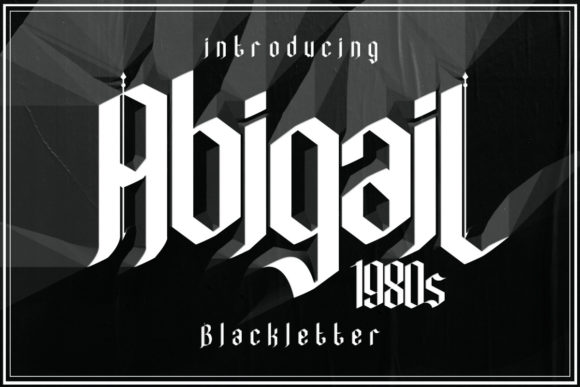
Get ready to embark on a journey back in time with AbigaiL1980s, a blackletter font that oozes nostalgia and captivates with its vintage charm. Crafted by Al Mughni Studio3, this remarkable font is an artistic gateway to the vibrant era of the 1980s.
AbigaiL1980s possesses an inimitable personality, exuding an air of boldness and playfulness that demands attention. Its distinct blackletter style is an embodiment of retro aesthetics, perfect for evoking a sense of longing for the past. Whether you're designing logos, posters, magazines, books, or any other creative project, AbigaiL1980s will add an unforgettable touch of vintage charm.
Be it the rustic charm of a local brewery or the timeless appeal of a historical novel, AbigaiL1980s is a versatile font that adapts seamlessly to your design vision. Let your imagination run wild as you explore the endless possibilities that this font has to offer.
With AbigaiL1980s, you'll become a storyteller, using your designs to transport your audience back to the dynamic days of the 1980s. Its captivating curves and sharp edges will leave an enduring impression, ensuring that your designs stand out from the crowd.